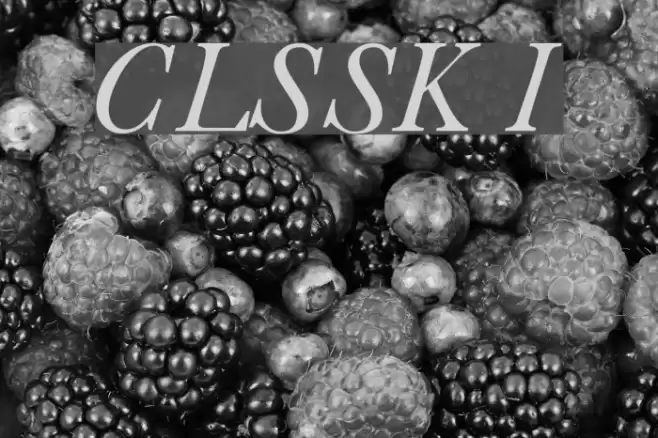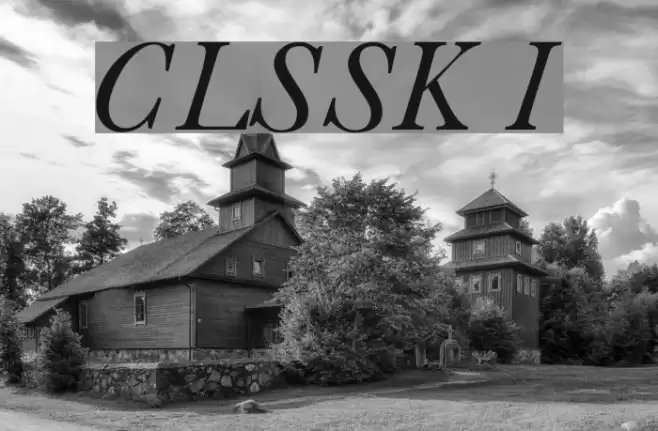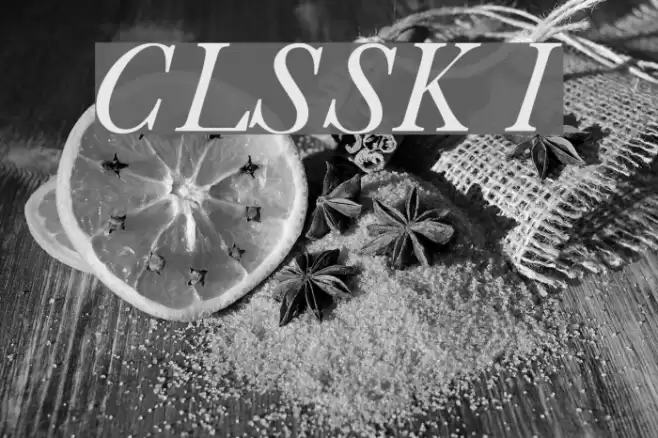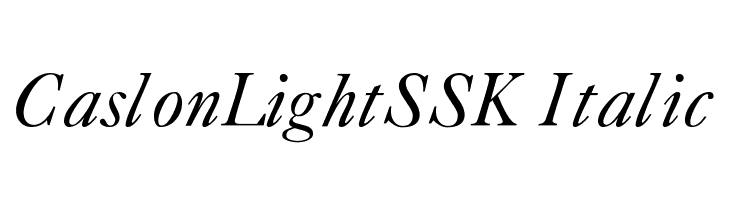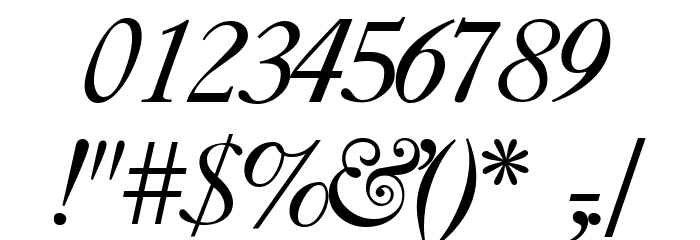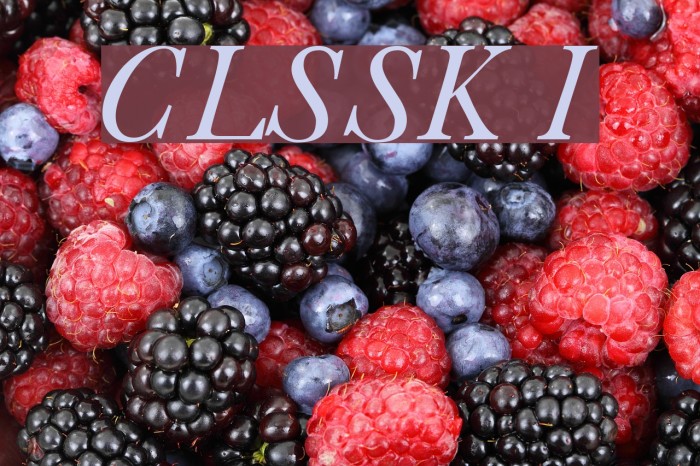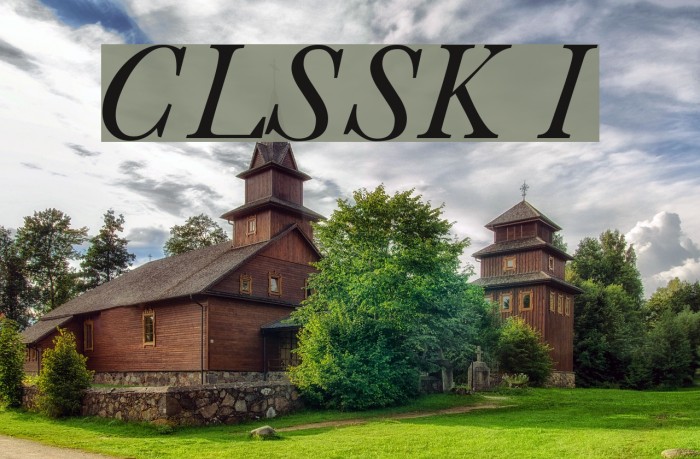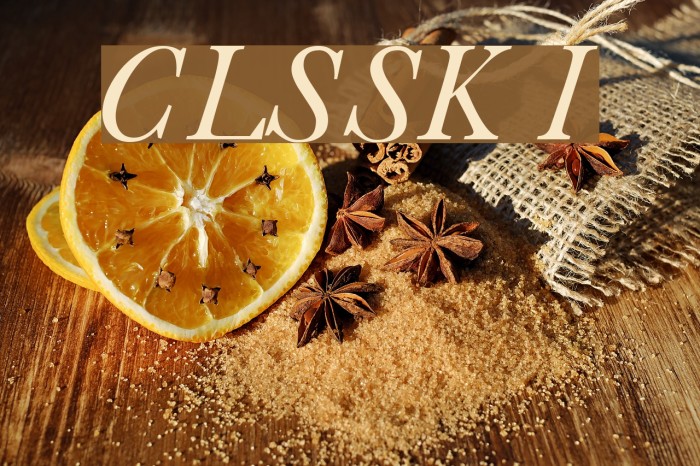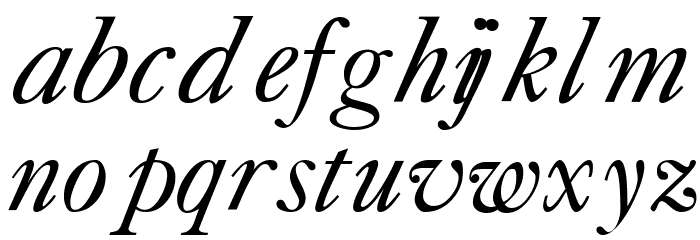
CaslonLightSSK Italic
This elegant serif font features a classic and sophisticated design with an italic style. The characters exhibit a graceful slant, enhancing the traditional serif elements with a touch of fluidity. The uppercase letters are well-proportioned, while the lowercase letters maintain a consistent flow, making it suitable for formal and refined applications. The numerals are clear and distinct, complementing the overall aesthetic. Special characters are thoughtfully designed, maintaining the font's cohesive appearance.
A classic serif font with an elegant italic style, perfect for refined applications.
- Proposed Projects: Ideal for use in formal invitations, elegant branding, editorial design, and classic book typesetting.
- Category: Serif
- Weight: Light
- Overall Style: Classic